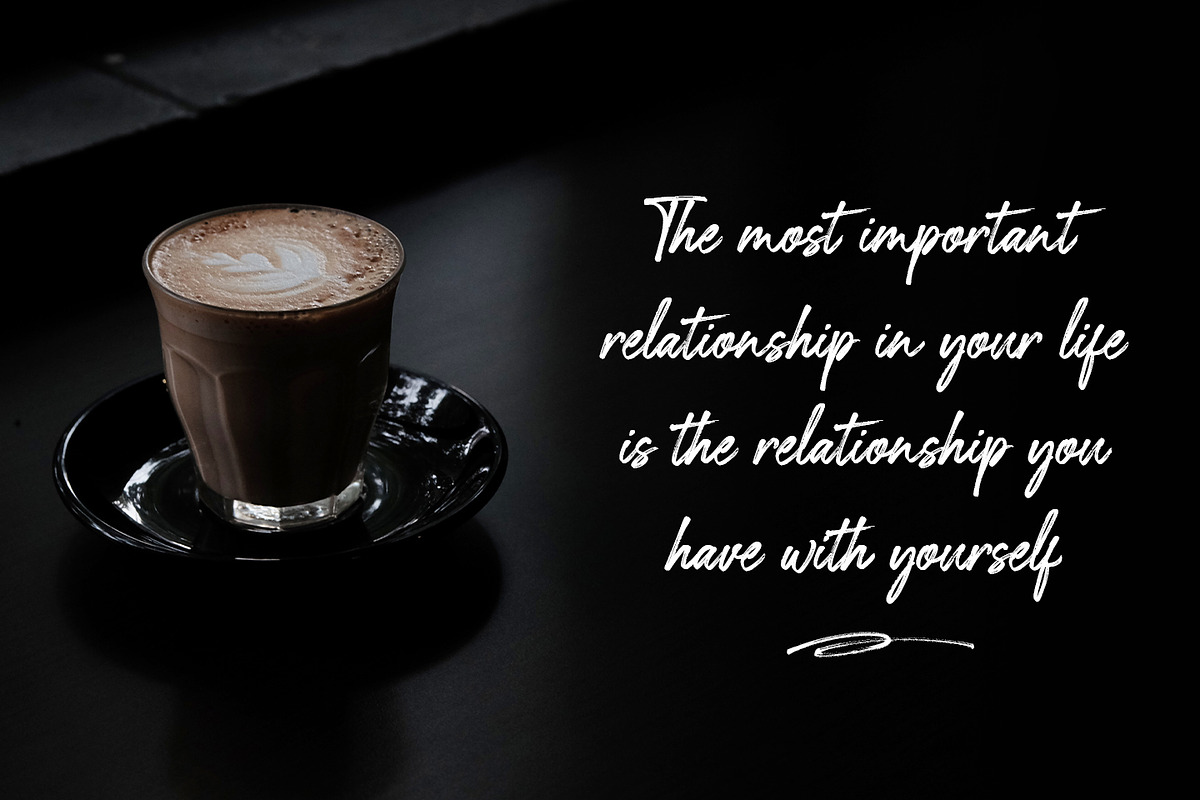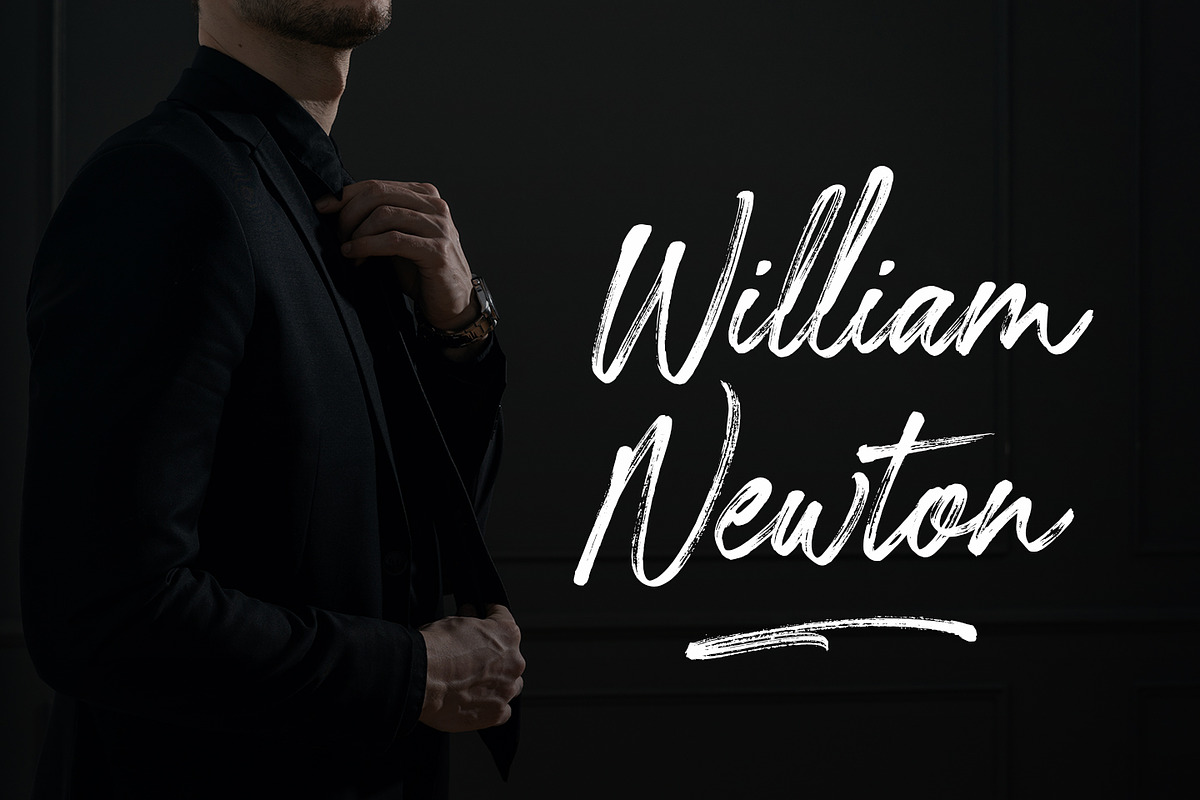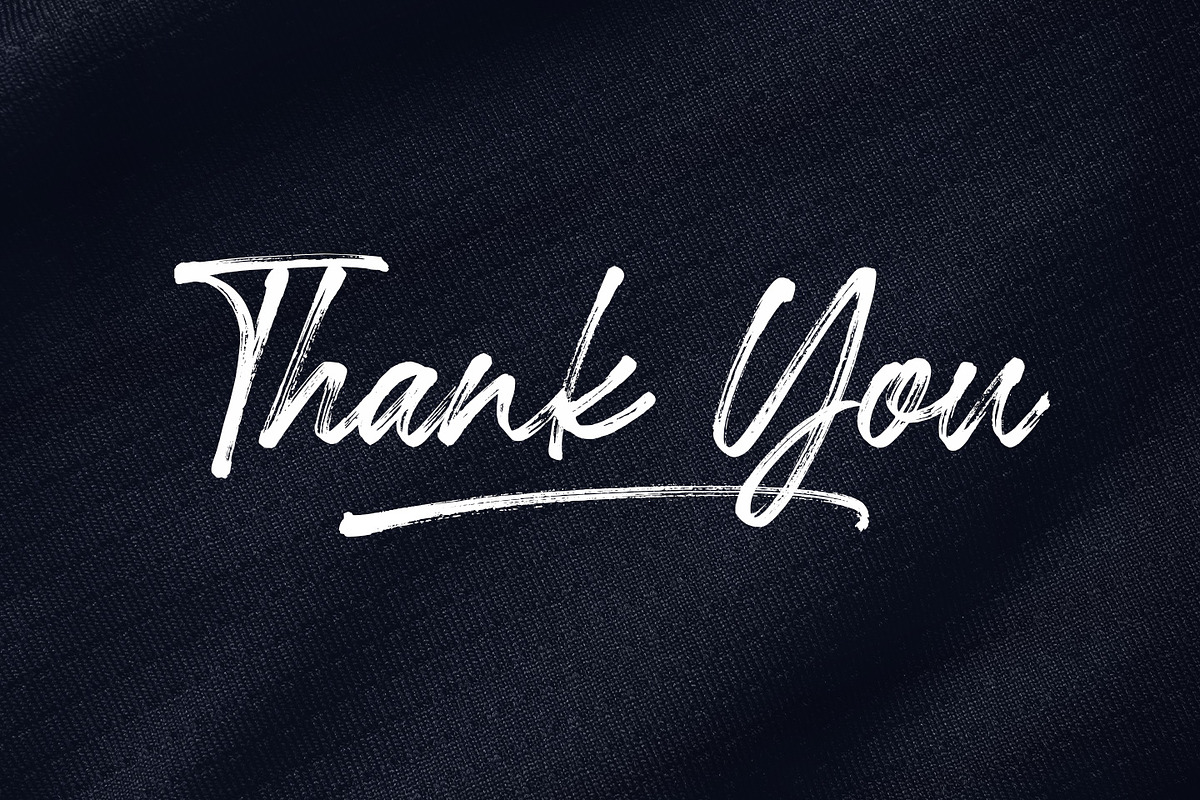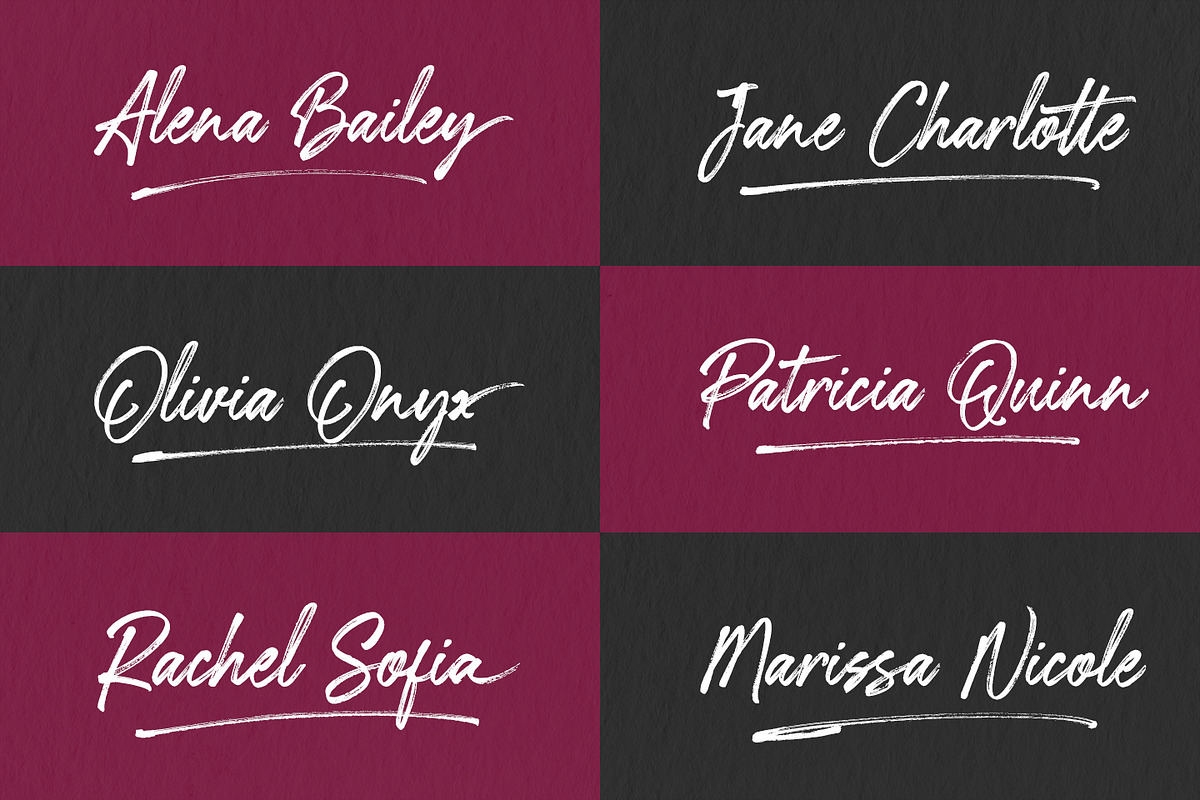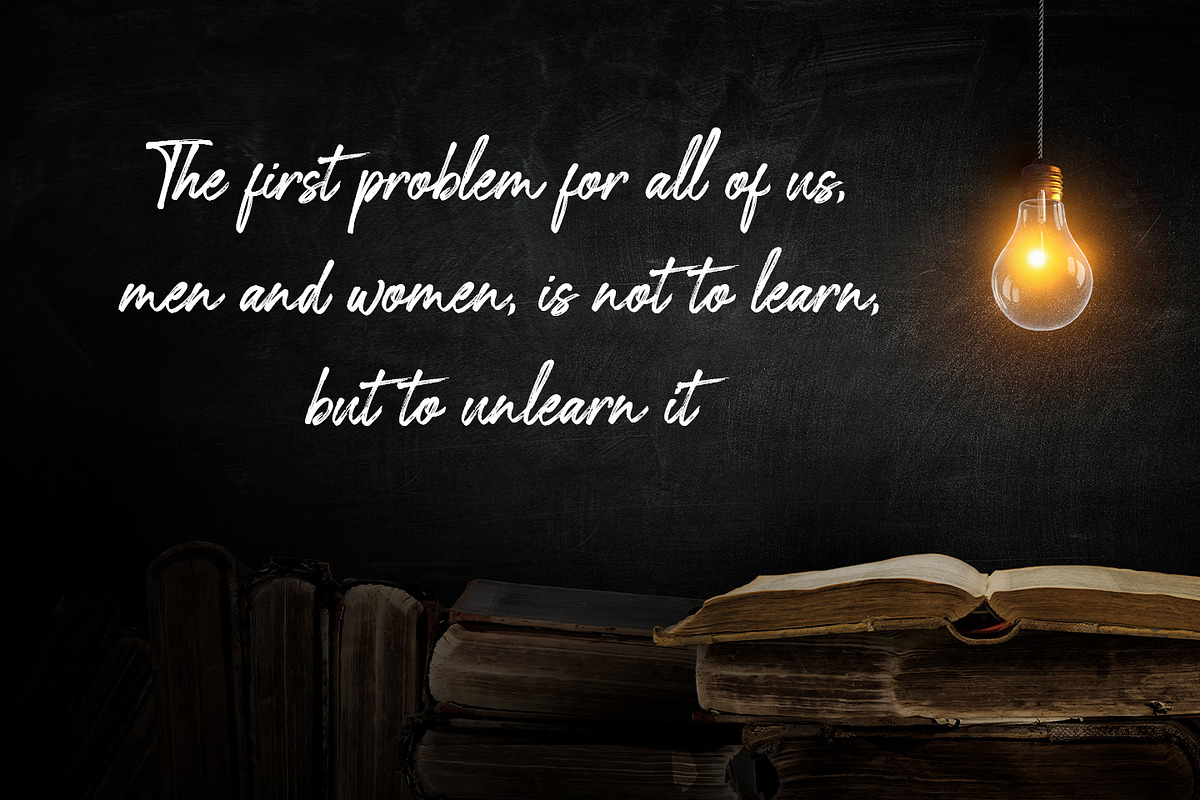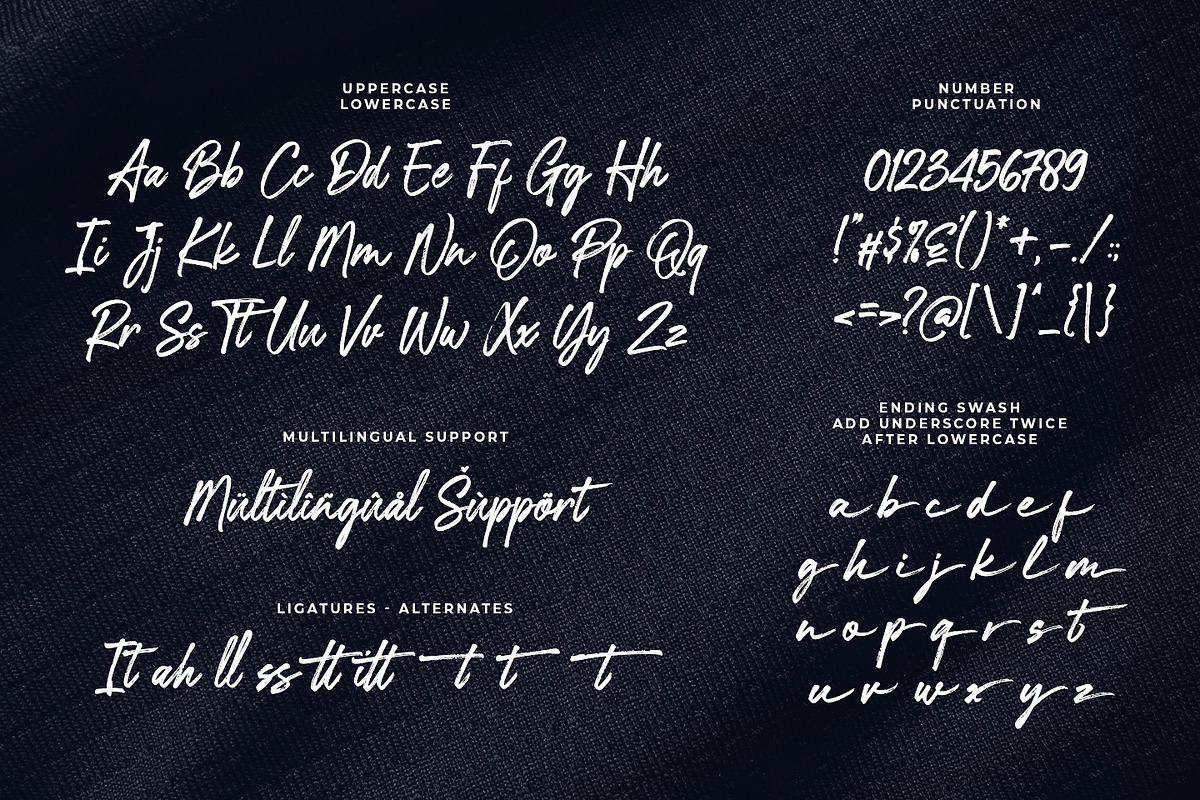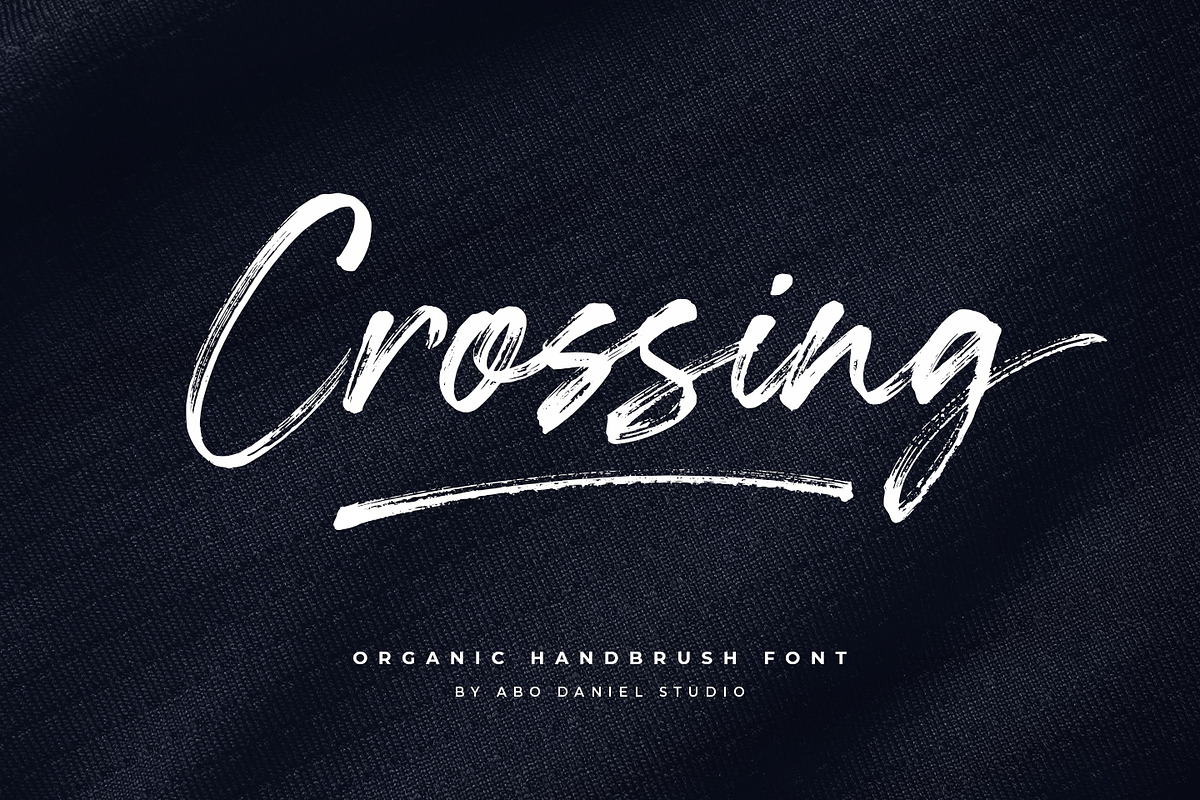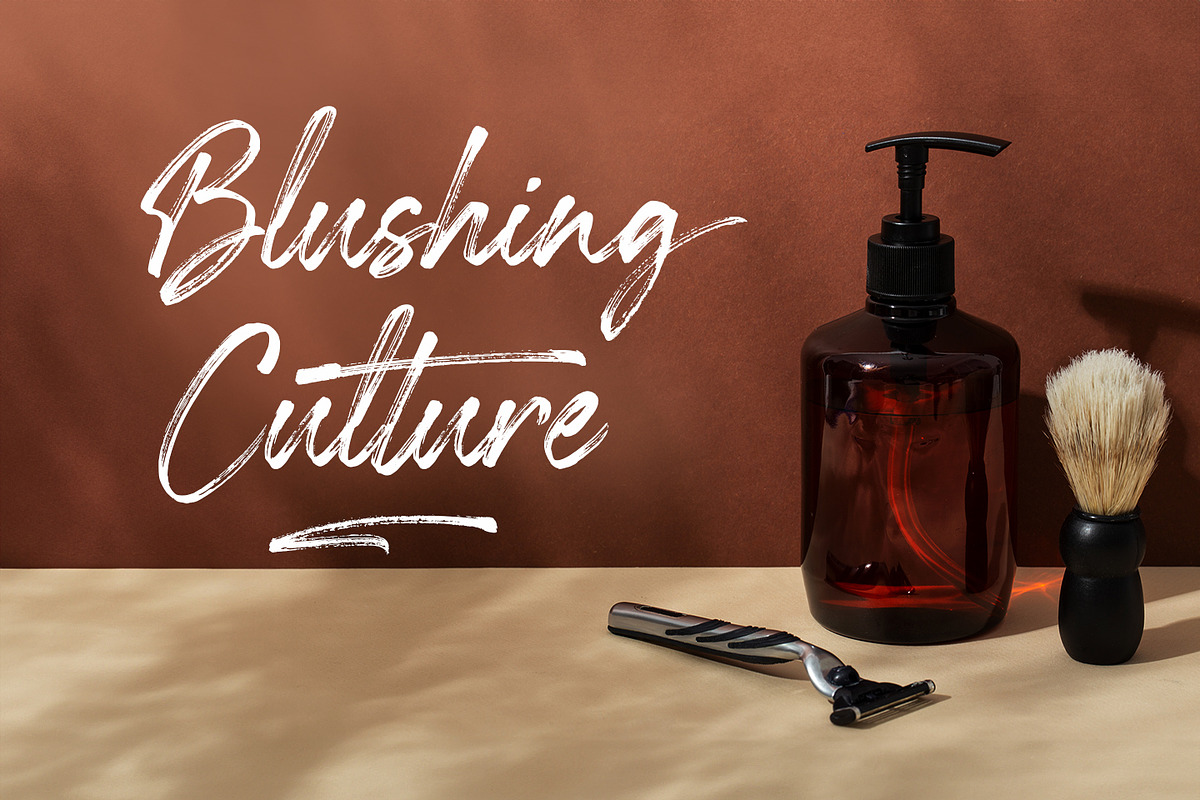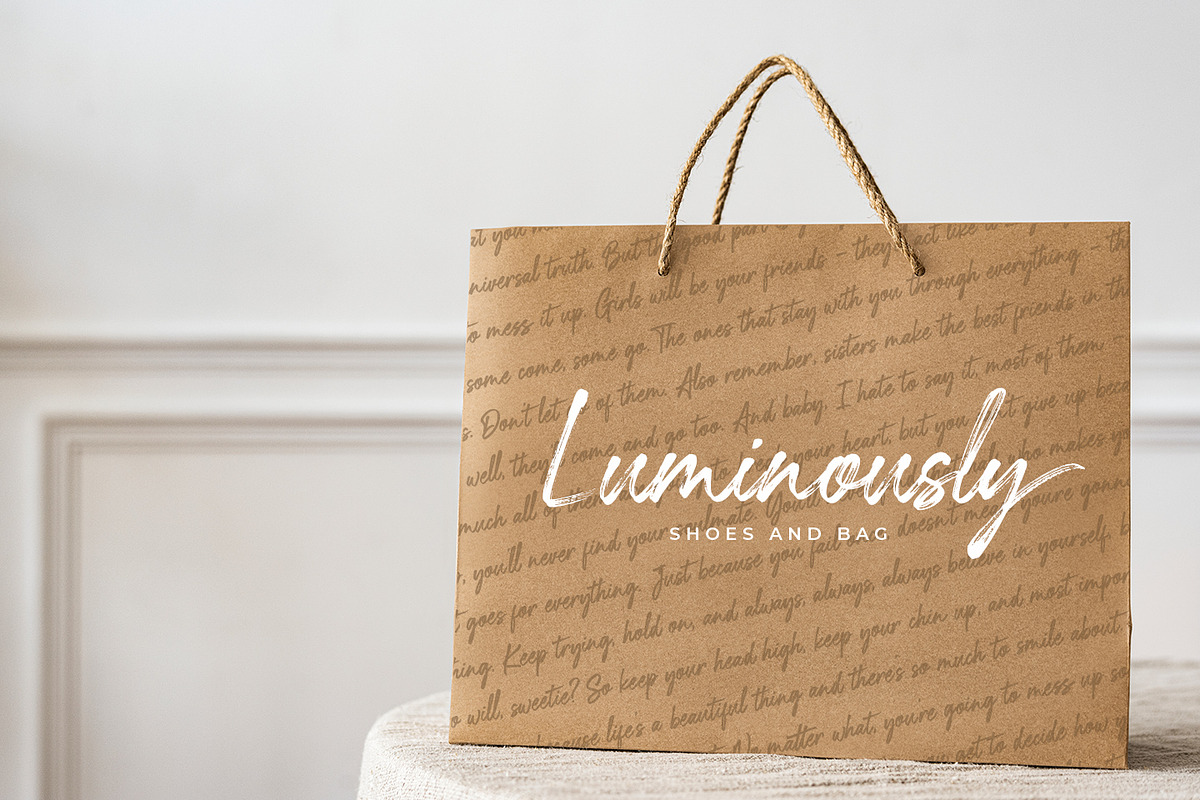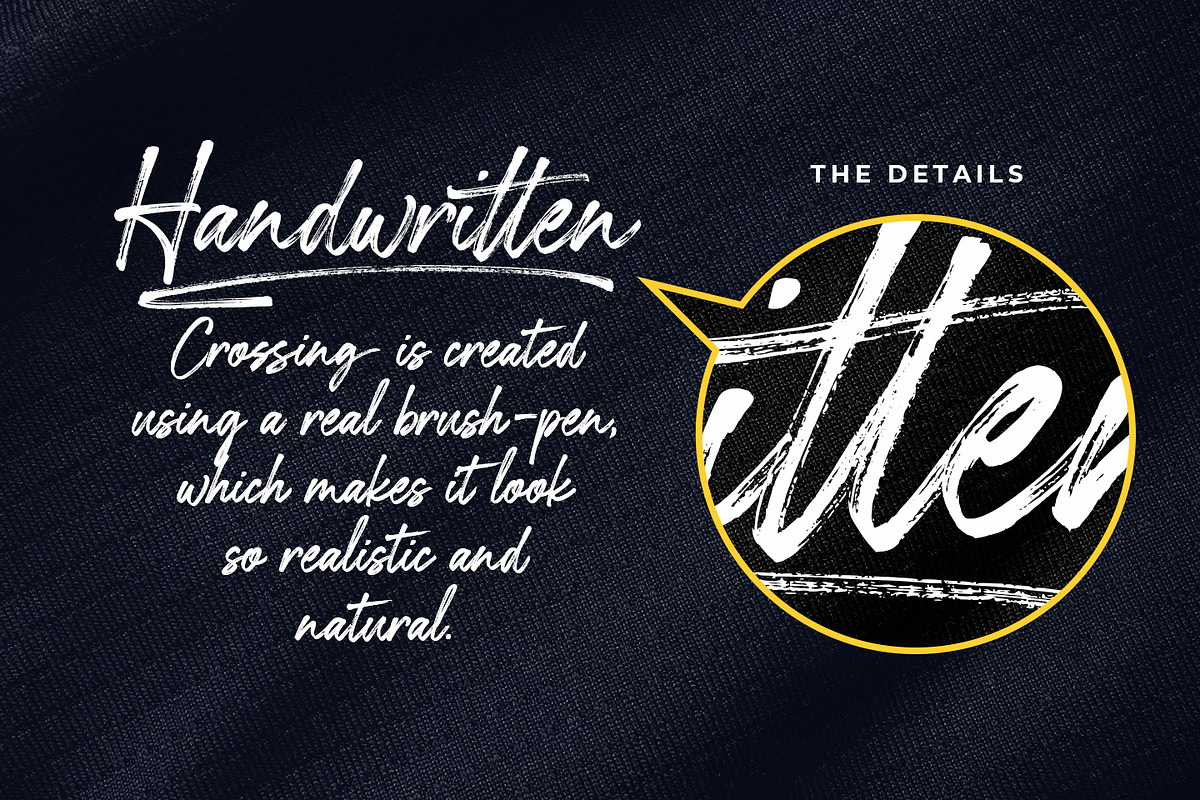
Crossing
CROSSING is an organic handbrush script font that blends effortless charm with raw brush texture. Crafted with a real brush-pen, Crossing flows with an organic, handwritten rhythm — perfect for designs that crave authenticity and warmth.
With smooth curves, dynamic strokes, and a touch of imperfection, Crossing brings a human feel to your creative work. Whether you're designing logos, packaging, wedding invitations, or social media graphics, this font adds a bold yet graceful script style that stands out.
Let your words dance with personality — Crossing delivers expressive brush script style with heart and flair.